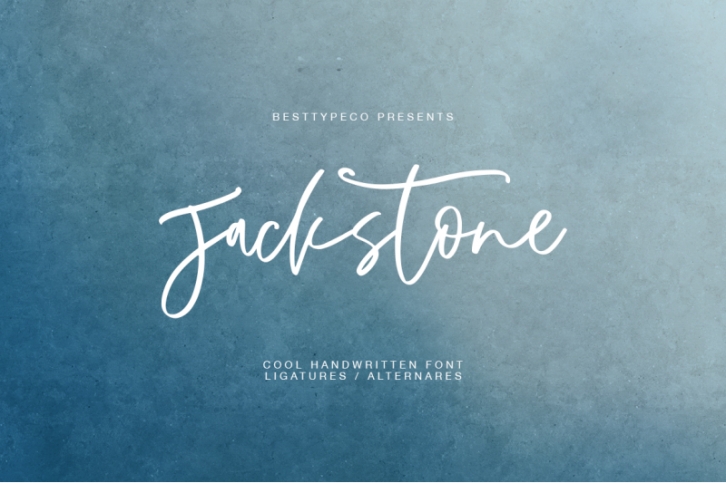
Jackstone - a new Stylish handmade calligraphy font.
Very suitable for greeting cards, branding materials, business cards, quotes, posters, and more!This font are perfect for wedding postcard. Or you can create perfect and unique design of your logo, blog, stationery, marketing, magazines and more :)
- Ligatures OK
-
Alternates